Currently under construction.
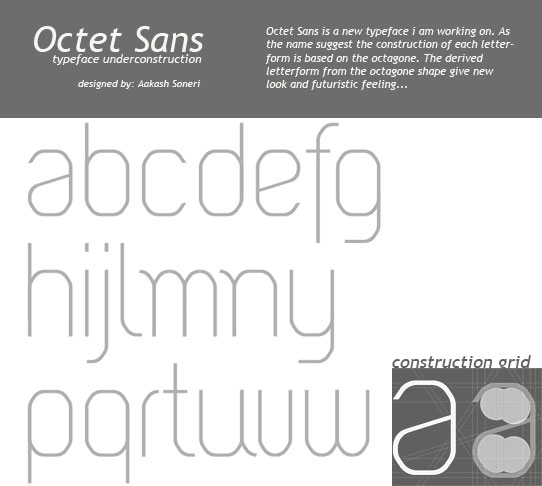
Octet Sans typeface Design - Octet Sans is a new typeface i m working on. As the name suggests, the construction of each letterform is based on the octagone.